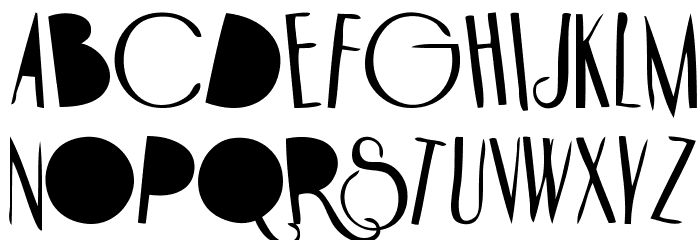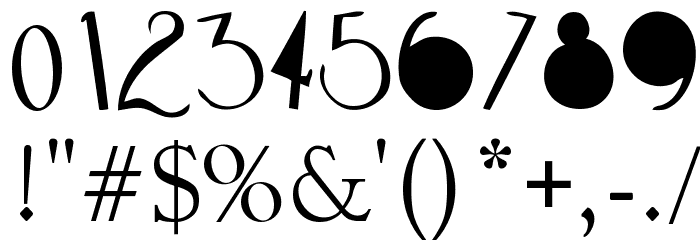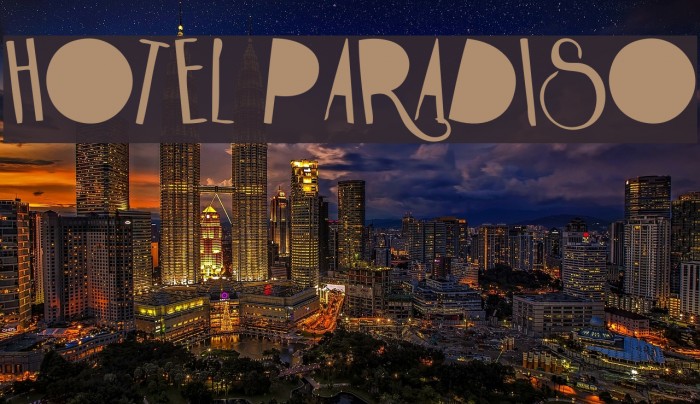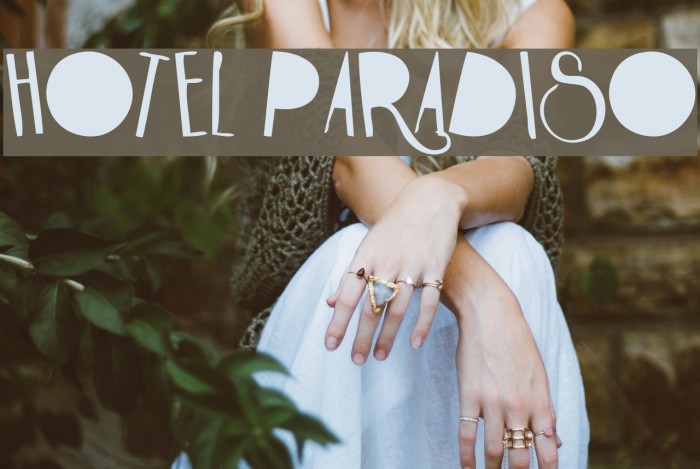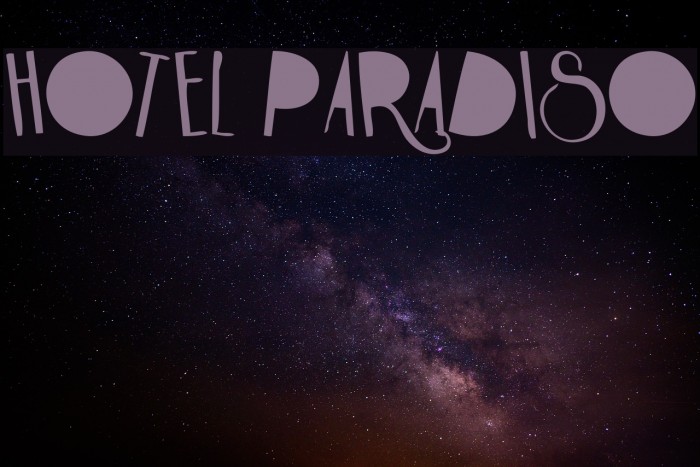
HOTEL PARADISO Font
This font features a playful and eclectic design, combining elements of both bold and thin strokes. The uppercase letters are characterized by a mix of thick, rounded shapes and slender, elongated lines, creating a dynamic and whimsical appearance. The lowercase letters maintain this playful style, with some characters having unique flourishes and curves that add to the font's charm. The numerals are bold and distinctive, with a quirky flair that matches the overall aesthetic. Special characters are creatively designed, incorporating both bold and thin elements, enhancing the font's decorative appeal.
A playful and eclectic font with bold and thin strokes, perfect for creative projects.
- Proposed Projects: Ideal for branding, posters, children's books, and any project that requires a fun and whimsical touch.
- Overall Style: Whimsical, Playful